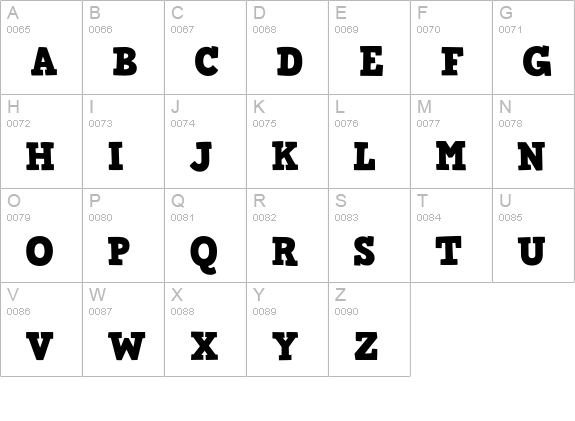
HVD Comic Serif Pro Font Details
Introducing HVD Comic Serif Pro font, the perfect blend of classic elegance and whimsical charm. This font brings a playful and lighthearted feel to any design, making it an excellent choice for comic books, children's literature, or any project that calls for a touch of fun. With its unique combination of serif elements and comic-inspired letterforms, HVD Comic Serif Pro font stands out from the crowd and adds a delightful twist to your designs. The well-crafted curves and distinctive serifs give this font a touch of sophistication, while the slightly exaggerated proportions inject a sense of playfulness. Not only does HVD Comic Serif Pro font offer a visually captivating style, but it also comes with a range of weights and styles to suit any design need. Whether you're creating headlines, body text, or captions, this font has you covered. But what makes HVD Comic Serif Pro font even more appealing is that it is freely available to download at FontsMarket.com. Yes, you read that right - this fantastic font can be yours without spending a penny. Its availability for free ensures that designers and creators of all budgets can access and enjoy this delightful typeface. So, whether you're a professional designer looking for a versatile font to add to your collection or an aspiring artist seeking a font that will breathe life into your creative projects, HVD Comic Serif Pro font is the perfect choice. Download it today from FontsMarket.com and let your imagination run wild with this captivating and free font.